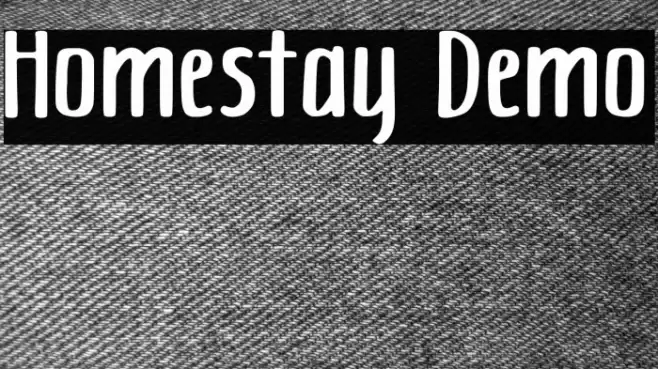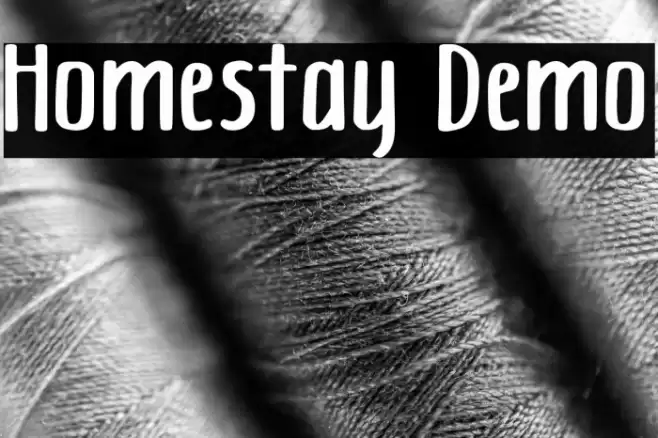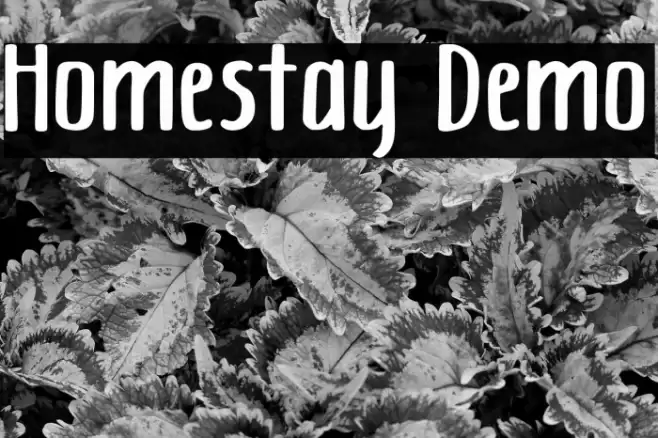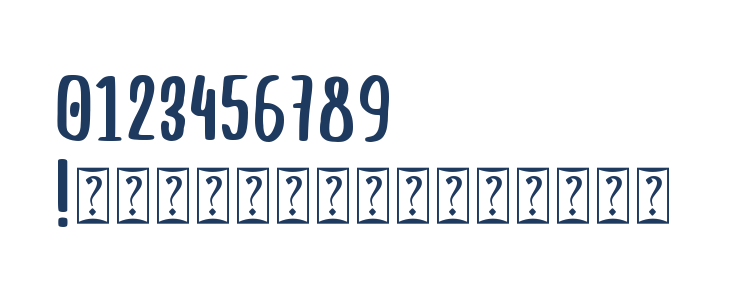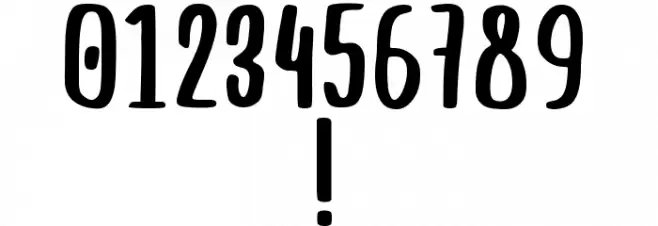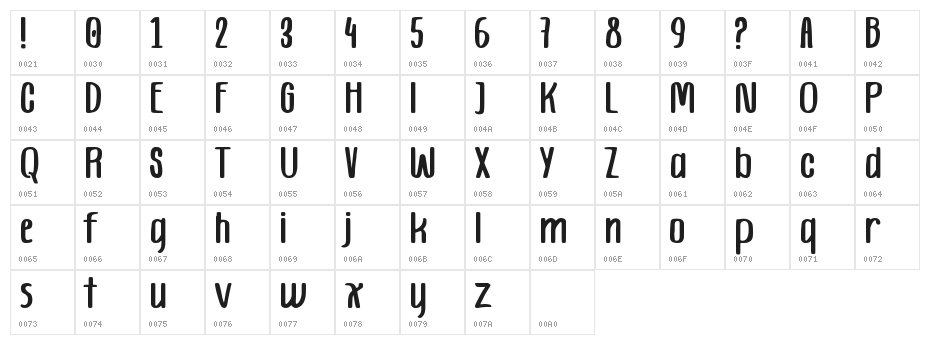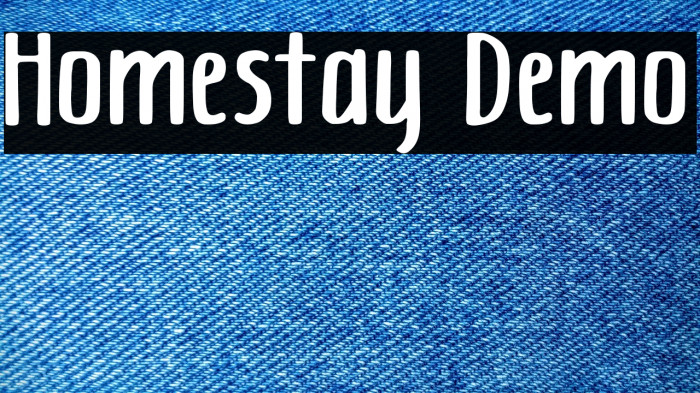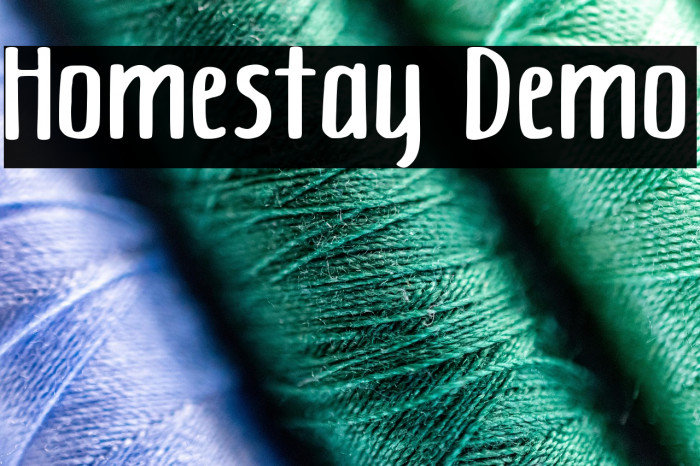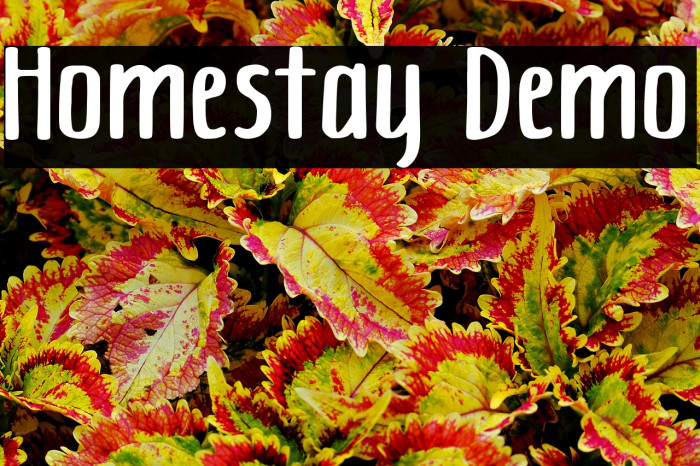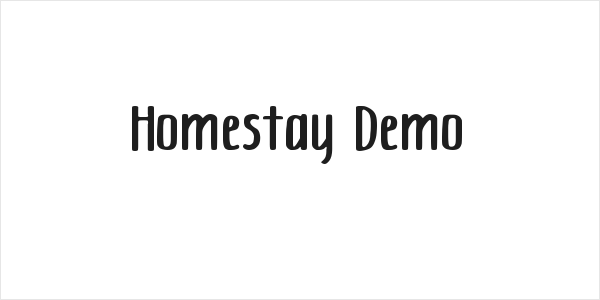
Homestay Demo Font
Homestay Demo Description
This font features a playful and rounded style with a hand-drawn appearance. The characters are slightly elongated, giving them a unique and whimsical look. The strokes are consistent in width, providing a uniform appearance across all letters and numbers. The font maintains a casual and friendly vibe, making it suitable for informal and creative projects. Its rounded edges and smooth curves contribute to its approachable and easy-going aesthetic. The font is versatile enough to be used in various design contexts where a relaxed and inviting feel is desired.
A playful, rounded font with a hand-drawn, whimsical style from Regular fonts.
- Proposed Projects: Ideal for children's books, greeting cards, playful branding, and creative posters.
- Overall Style: Casual